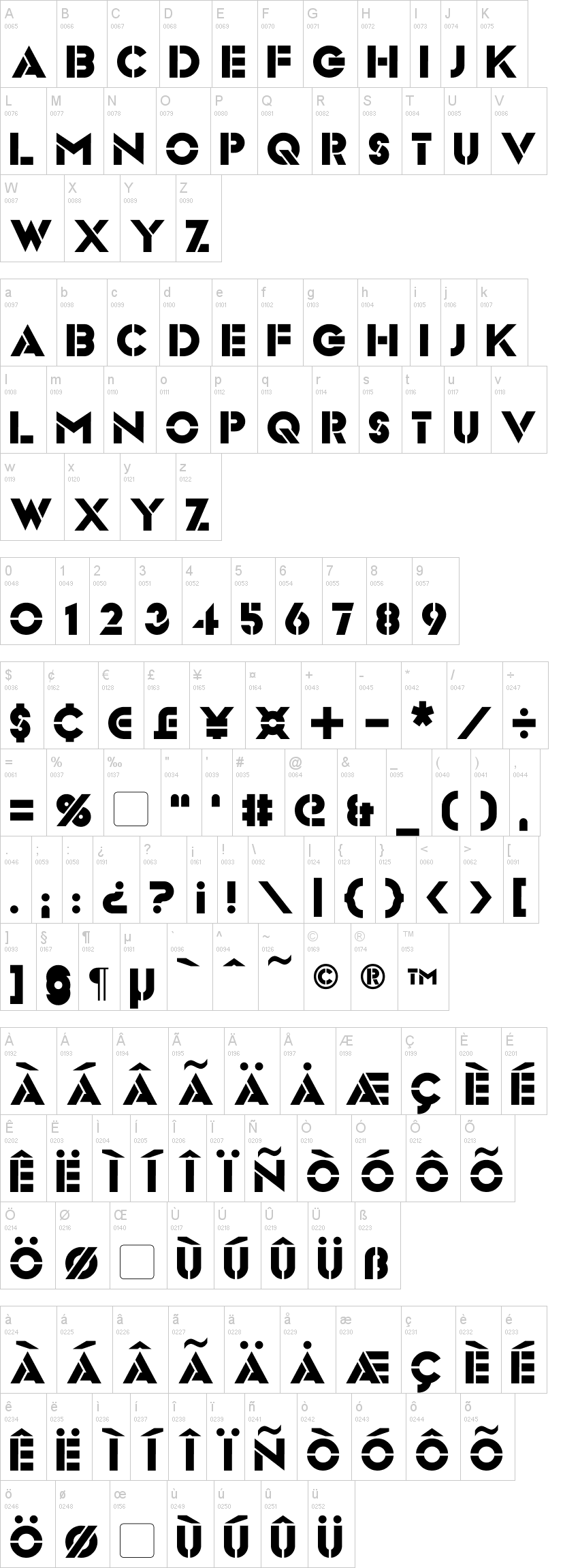
Шрифт Videopac
This quasi-stenciled typeface is based on the title logos and cartridge numbers of the classic Philips gaming system from the late 1970s. Includes full alphabet, extended punctuation, Euro. Includes italic version.